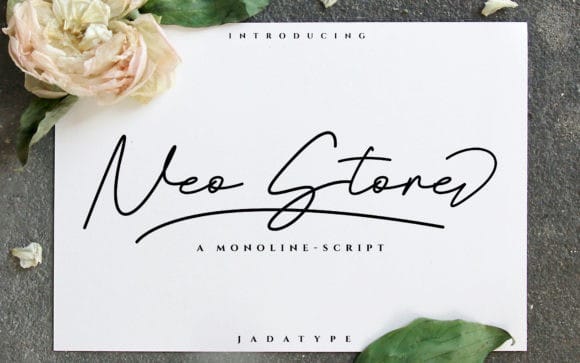
Neo Stone Handwritten Font
Neo Stone is an elegant and flowing handwritten signature font. This font is PUA encoded which means you can access all of the glyphs and swashes with ease! It features a varying baseline, smooth lines, gorgeous glyphs and stunning alternates. Fall in love with its incredibly versatile style and use it to create spectacular designs!
This font are perfect for wedding invitation or your blog. Also with their help, you can create a logo or beautiful frame for your home. Or just use for your small business, book covers, stationery, marketing, magazines and more.